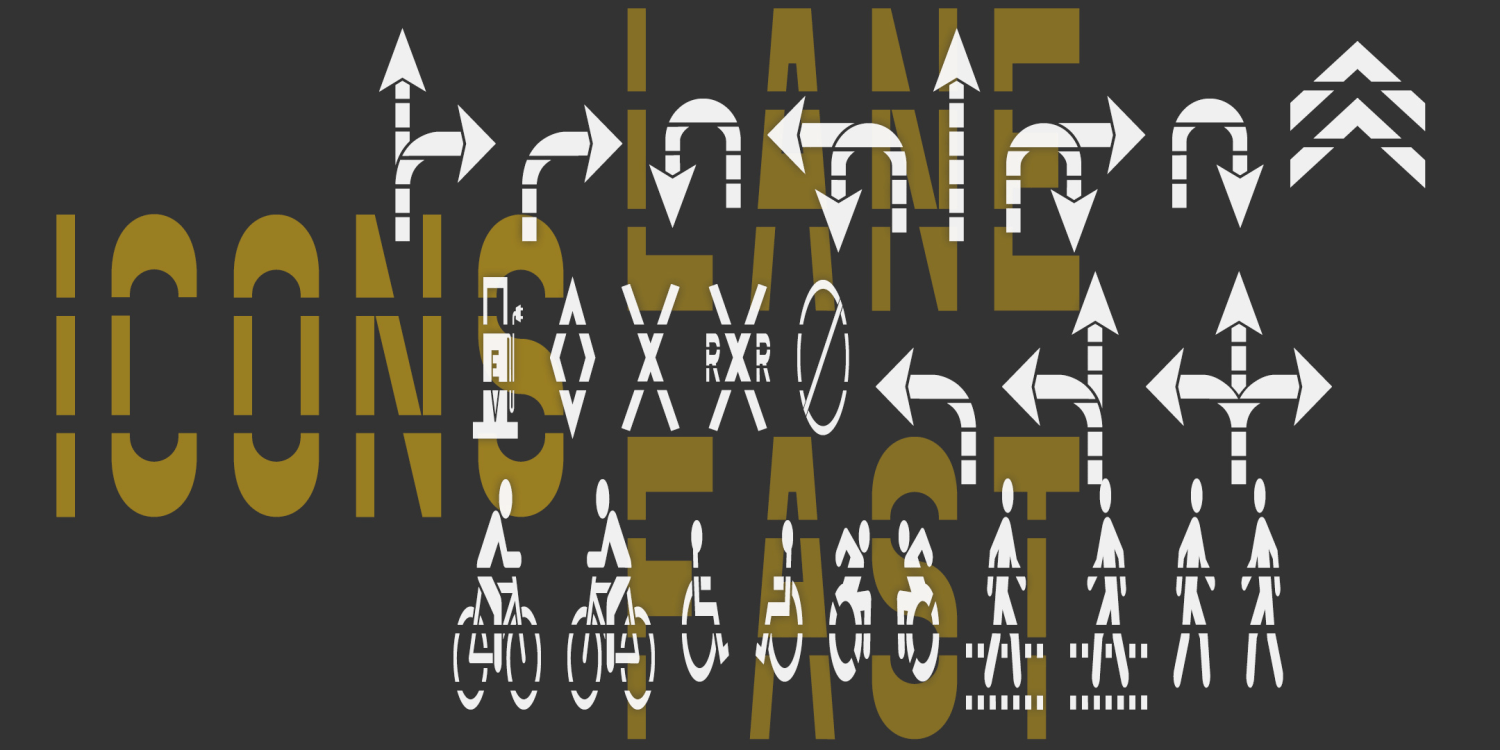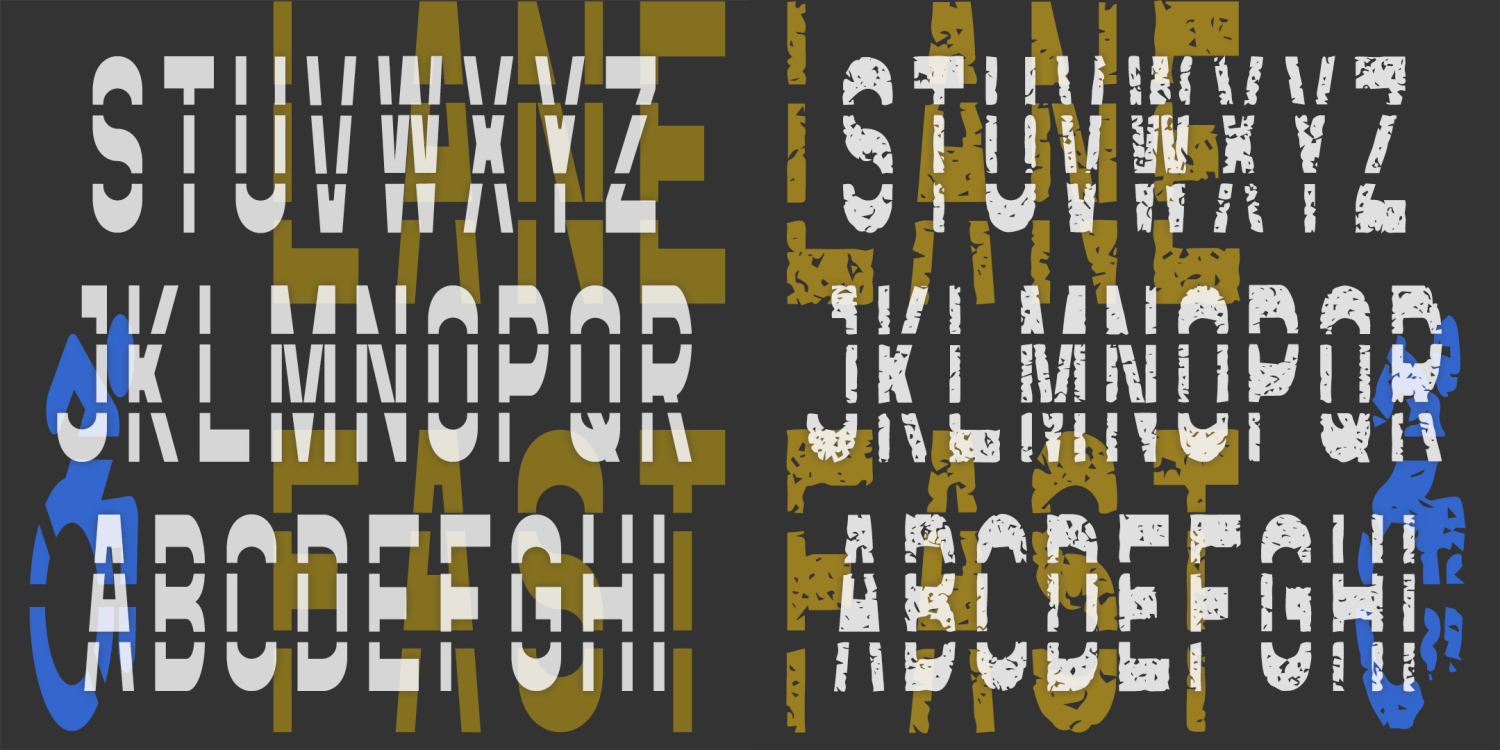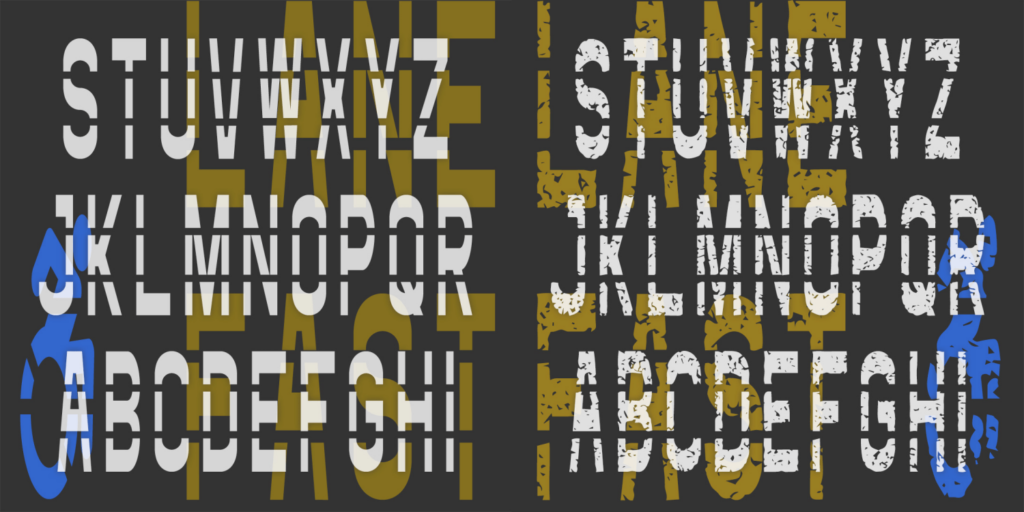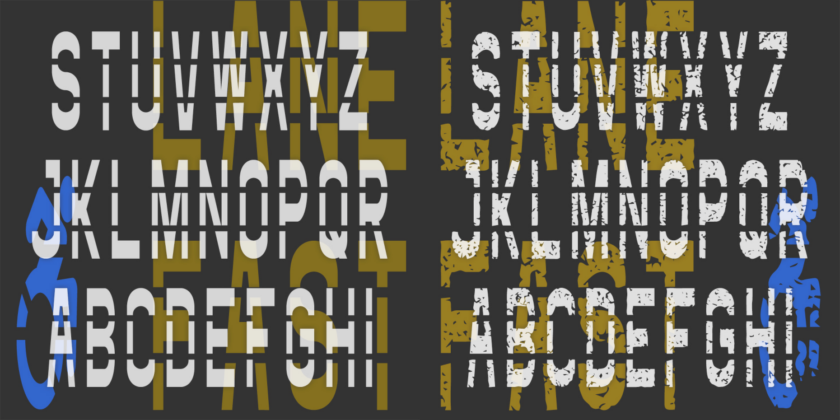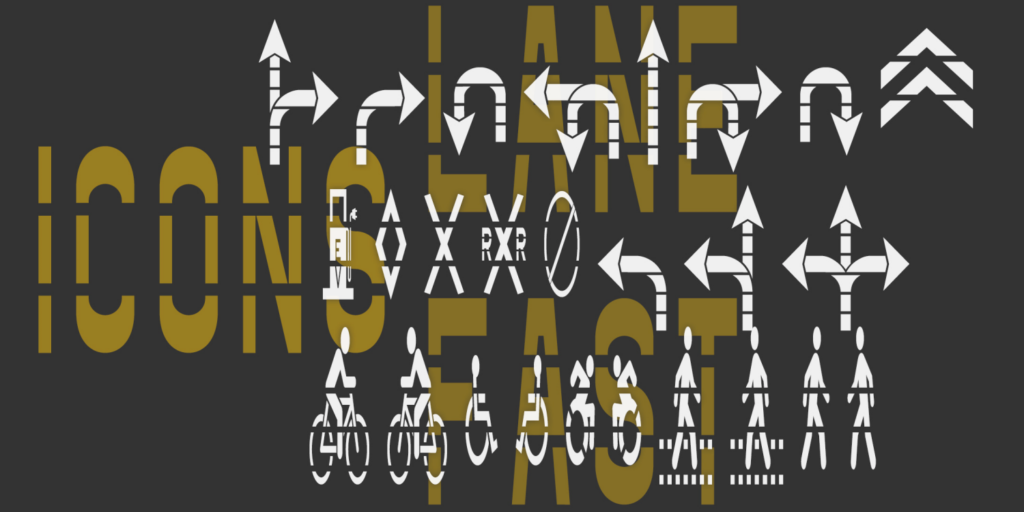
Fast Lane
About Fast Lane
The Fast Lane fonts were inspired by roadway and parking lot markings, reflecting both the stencil style and the stretched form that looks normal when viewed at an angle. The Icons fonts includes symbols and arrows to accompany the letters and numbers,…